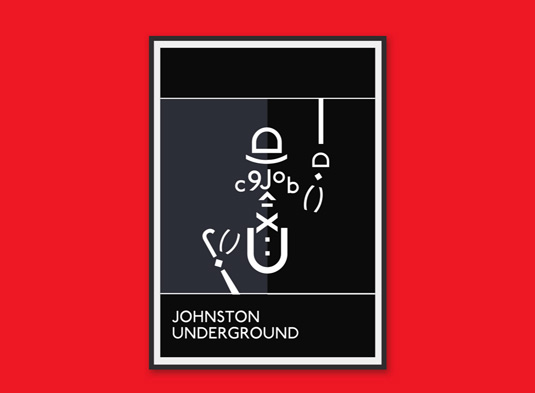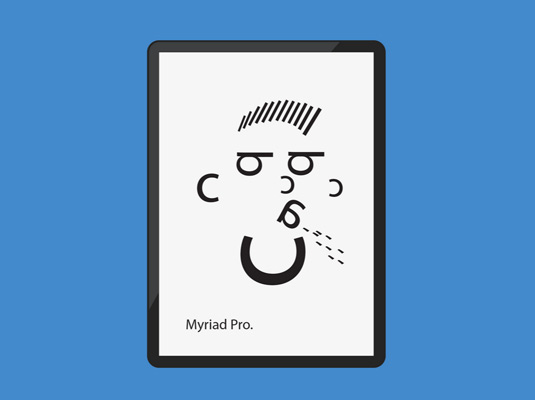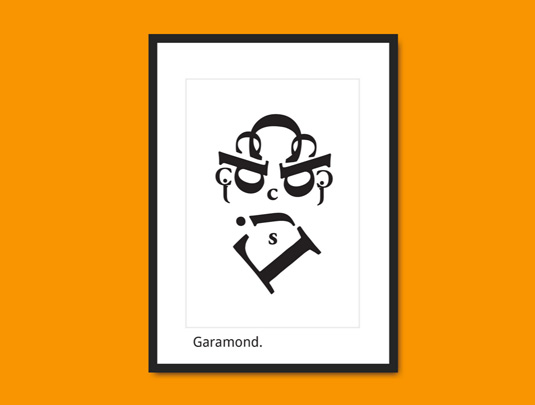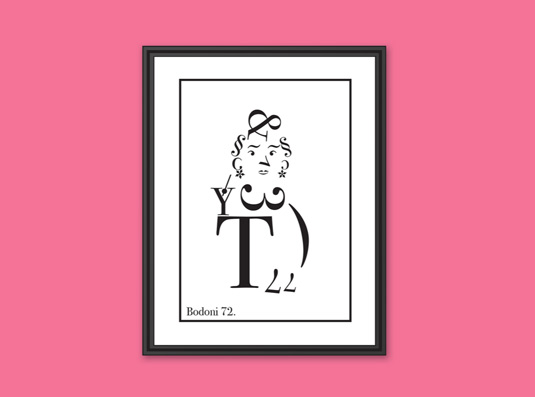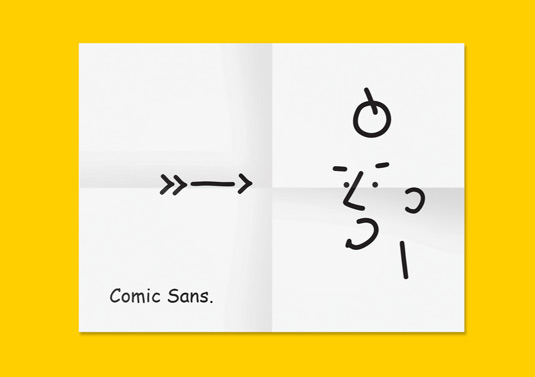
See everyday fonts become funny portraits
This artist's gallery of amusing font portraits really puts the 'face' into typeface.
Thanks to their stylised shapes and formats, fonts are loaded with character that affect how you read them. We've already seen students describing typefaces as people, but this collection takes personification to the next level.
Designed by art director Giovanni Isnenghi, TypeFaces Vol 1 is a personal project that rearranges familiar fonts into amazingly appropriate portraits.
From a gruff Garamond profile to the widely despised Comic Sans taking an arrow to the head, these pictures find creative ways to reinvent something as recognisable as typography.